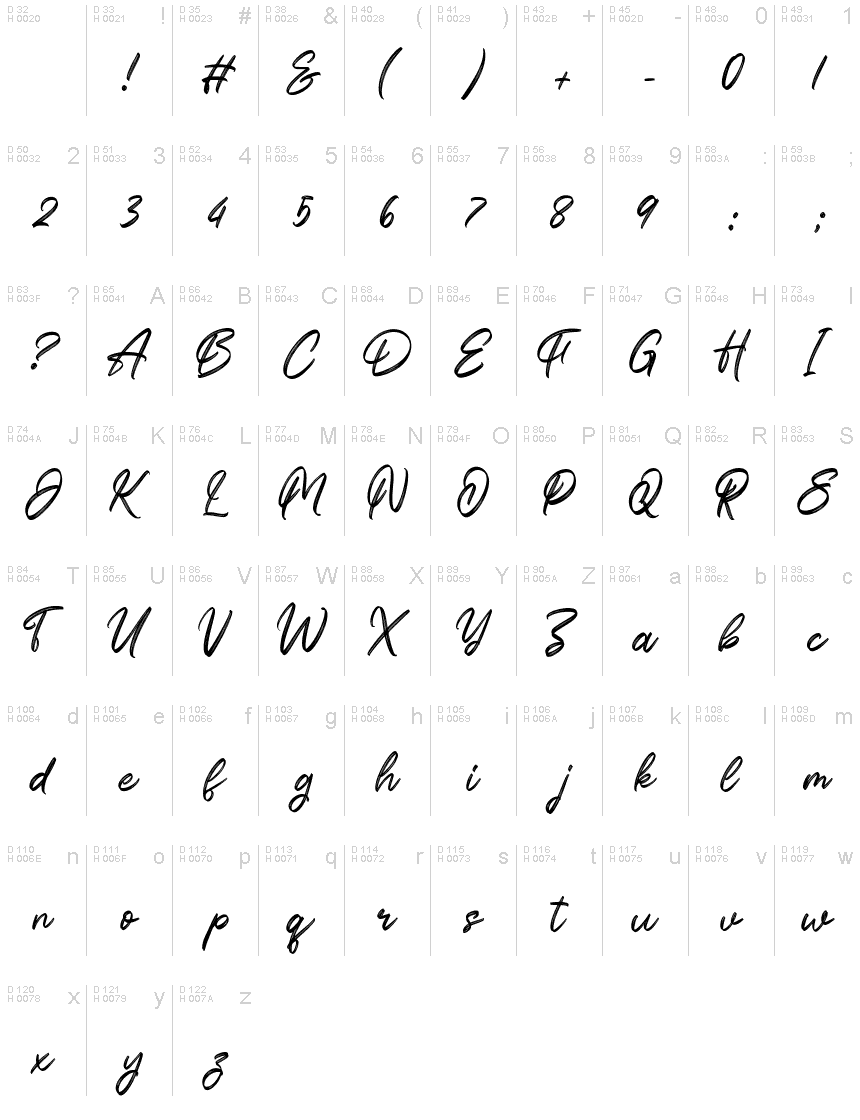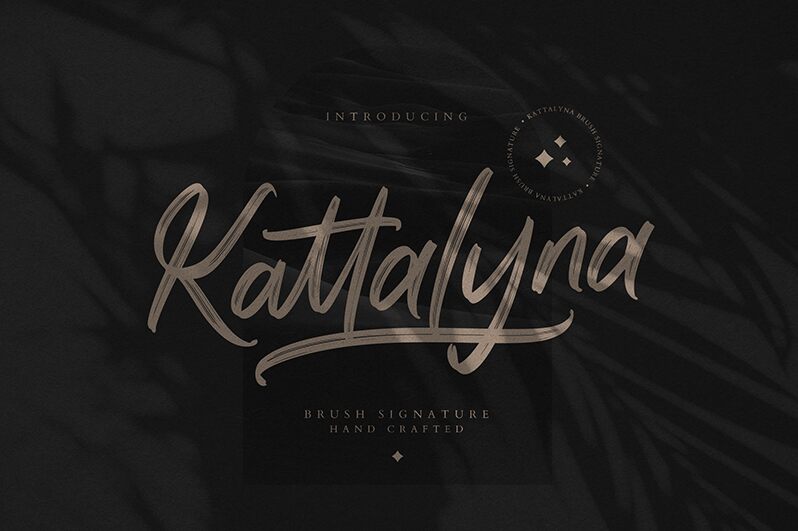
Kattalyna Regular
Kattalyna is a beautiful brush font designed by Rian Rahardi. Its light and delicate strokes add an elegant touch to any project. Perfect for creating wedding invitations, logo designs, greeting cards, and more!